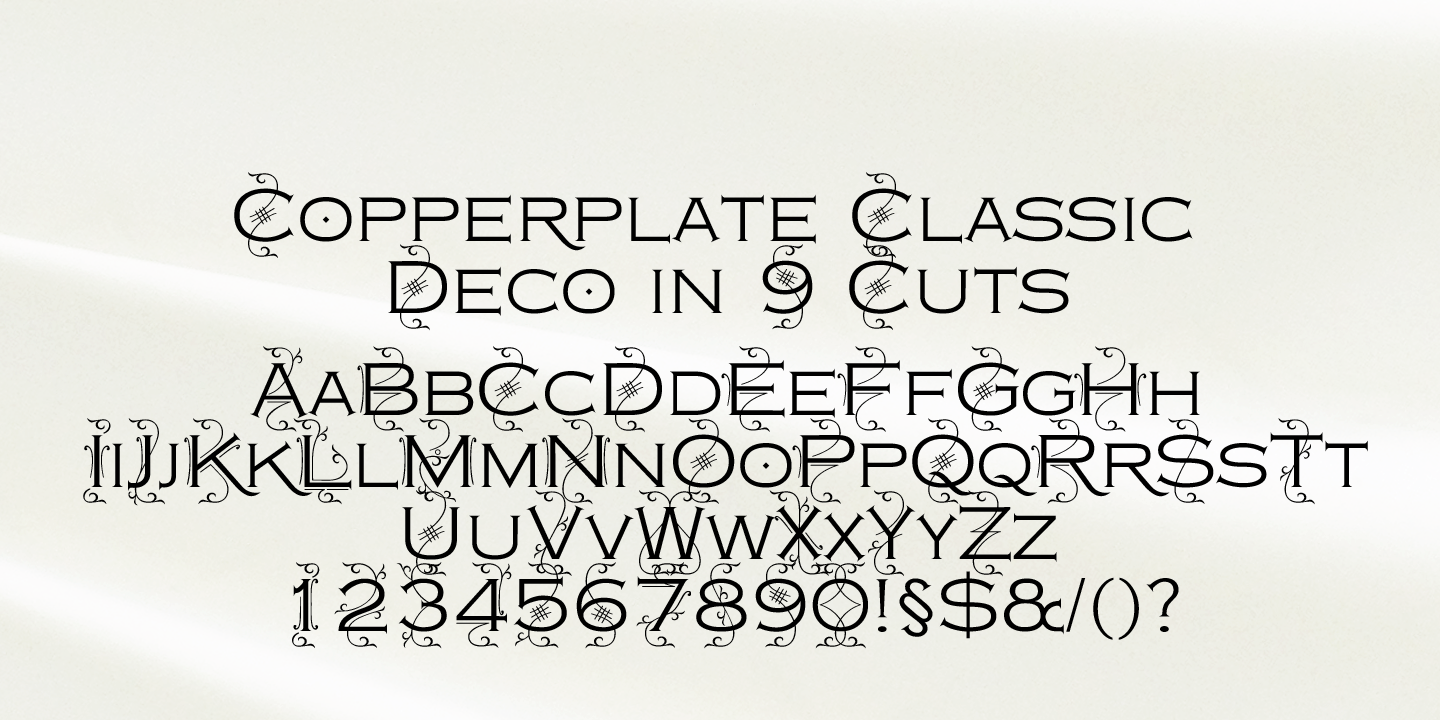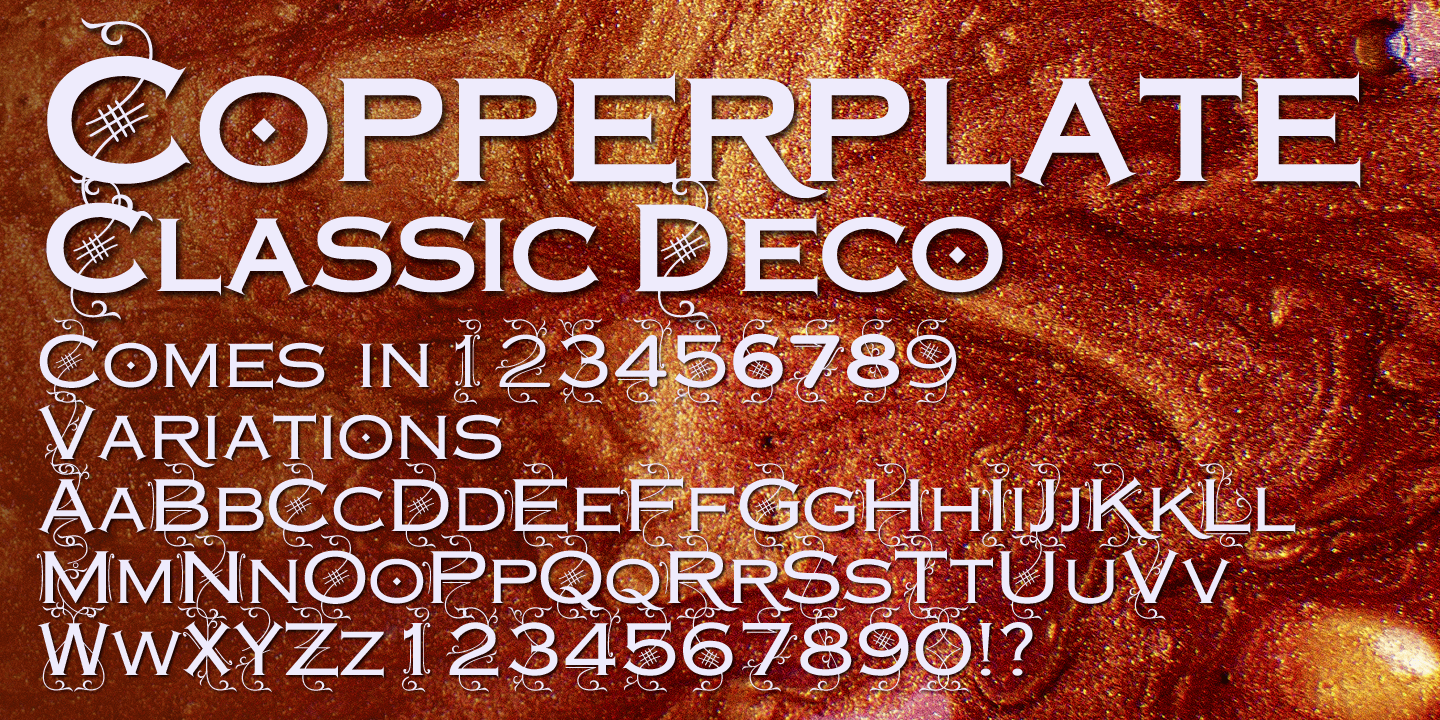
Copperplate Deco
Font Family by Wiescher Design
Buy NowCopperplate Deco is my sparingly decorated version of my Copperplate fonts. They can be used as standalone fonts.